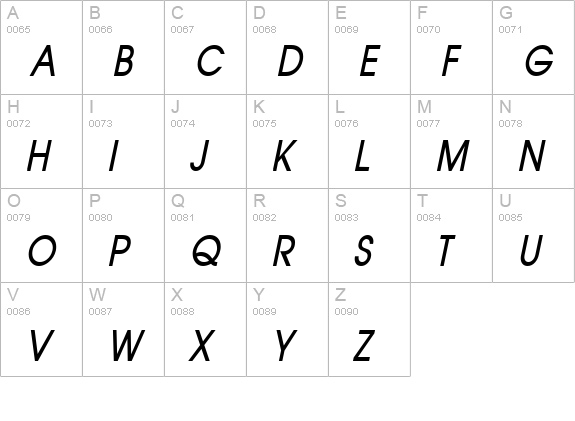
Atilla Condensed BoldItalic is a distinctive, condensed-width variant in the Atilla typeface family \xE2\x80\x94 well suited to design and typography projects.
Atilla Condensed BoldItalic font exudes a sense of modernity and sophistication with its sleek design and bold italic style. This versatile typeface is perfect for making a statement in your designs, from branding to posters to headlines. The bold strokes and slanted angles of Atilla Condensed BoldItalic font command attention and add a touch of edginess to any project. Best of all, Atilla Condensed BoldItalic font is available for free download at FontsMarket.com. This means you can easily incorporate this striking typeface into your designs without breaking the bank. Whether you're a professional designer or a hobbyist looking to elevate your projects, Atilla Condensed BoldItalic font is a must-have addition to your font library. Download it today and unleash your creativity with this stunning and impactful typeface.